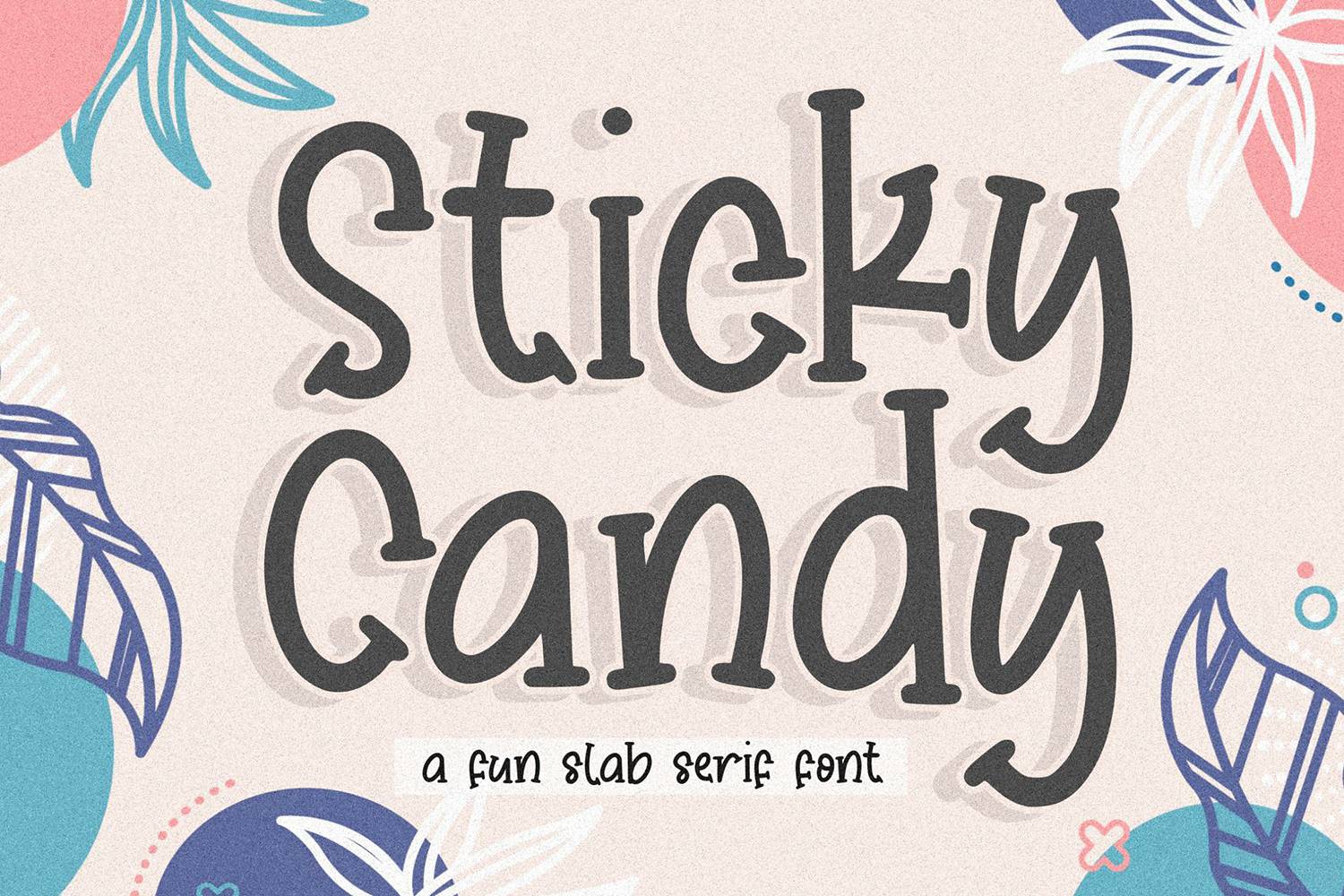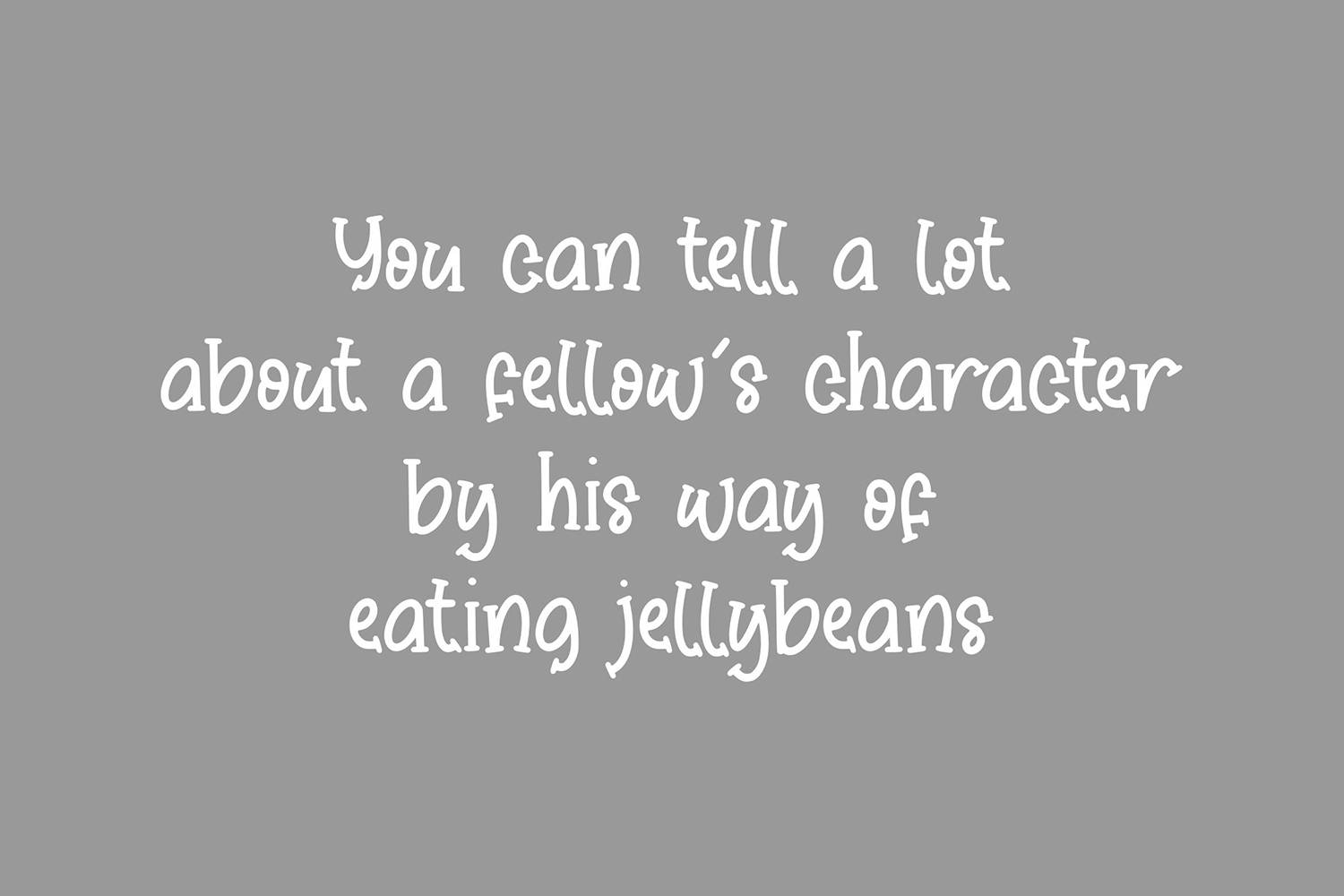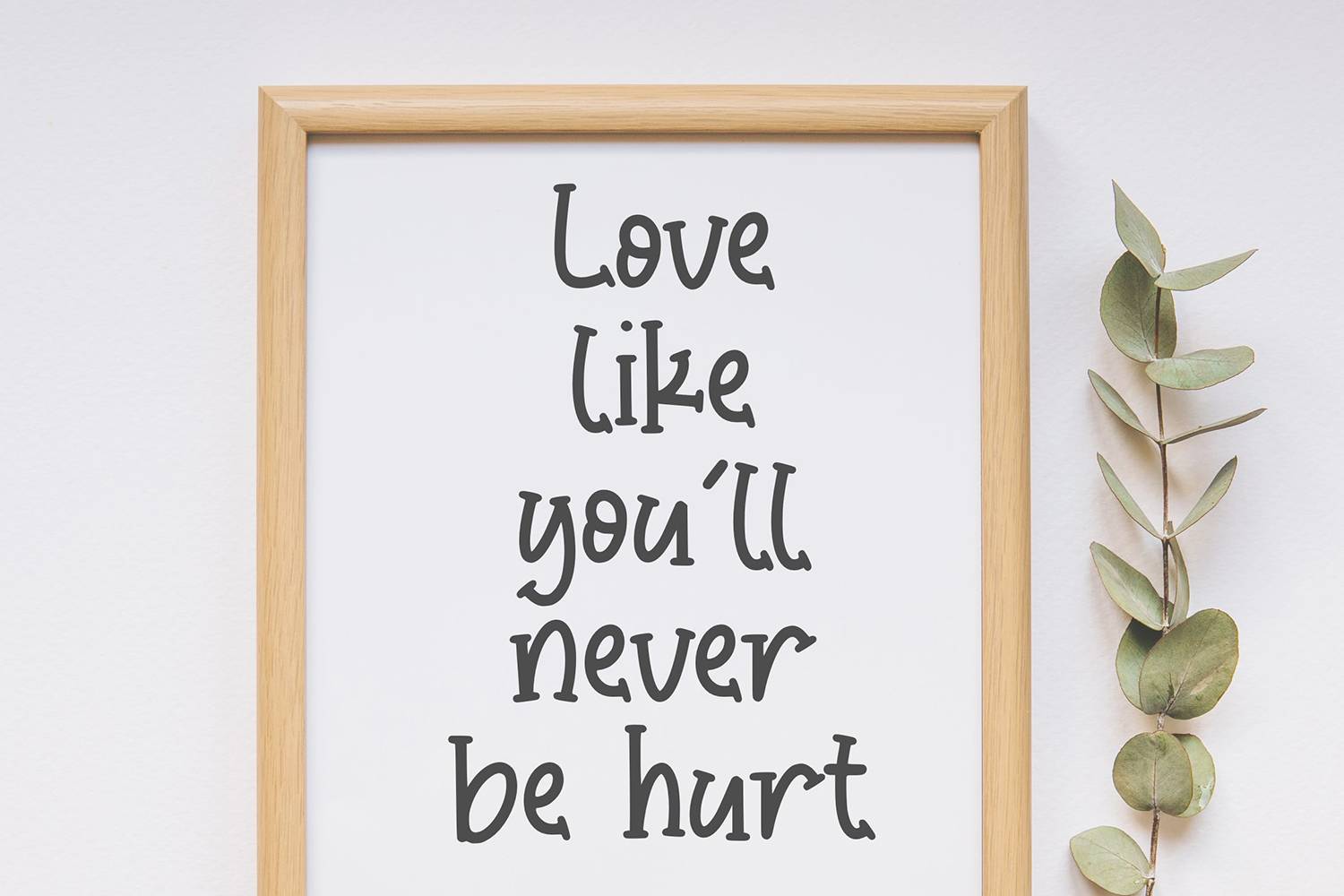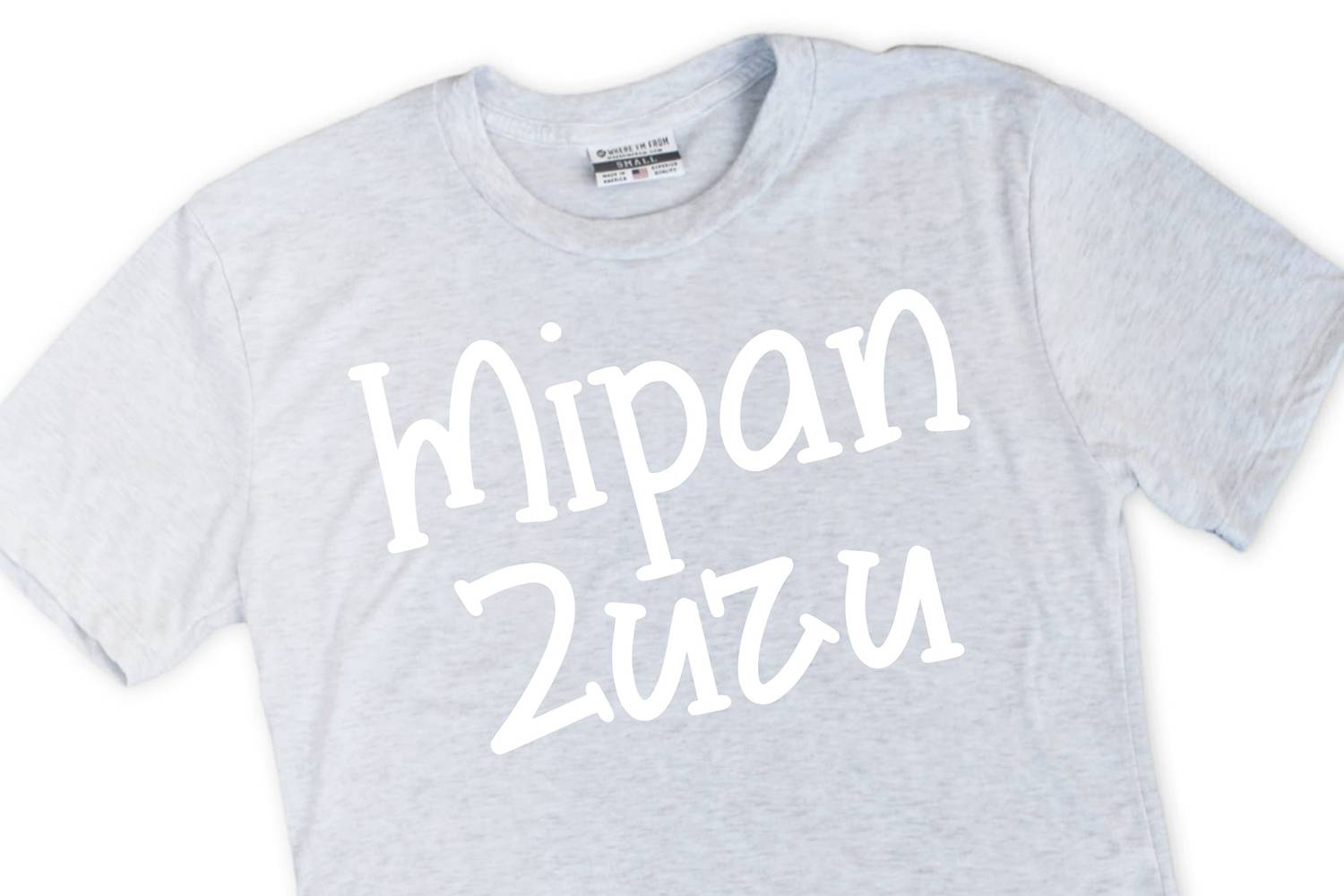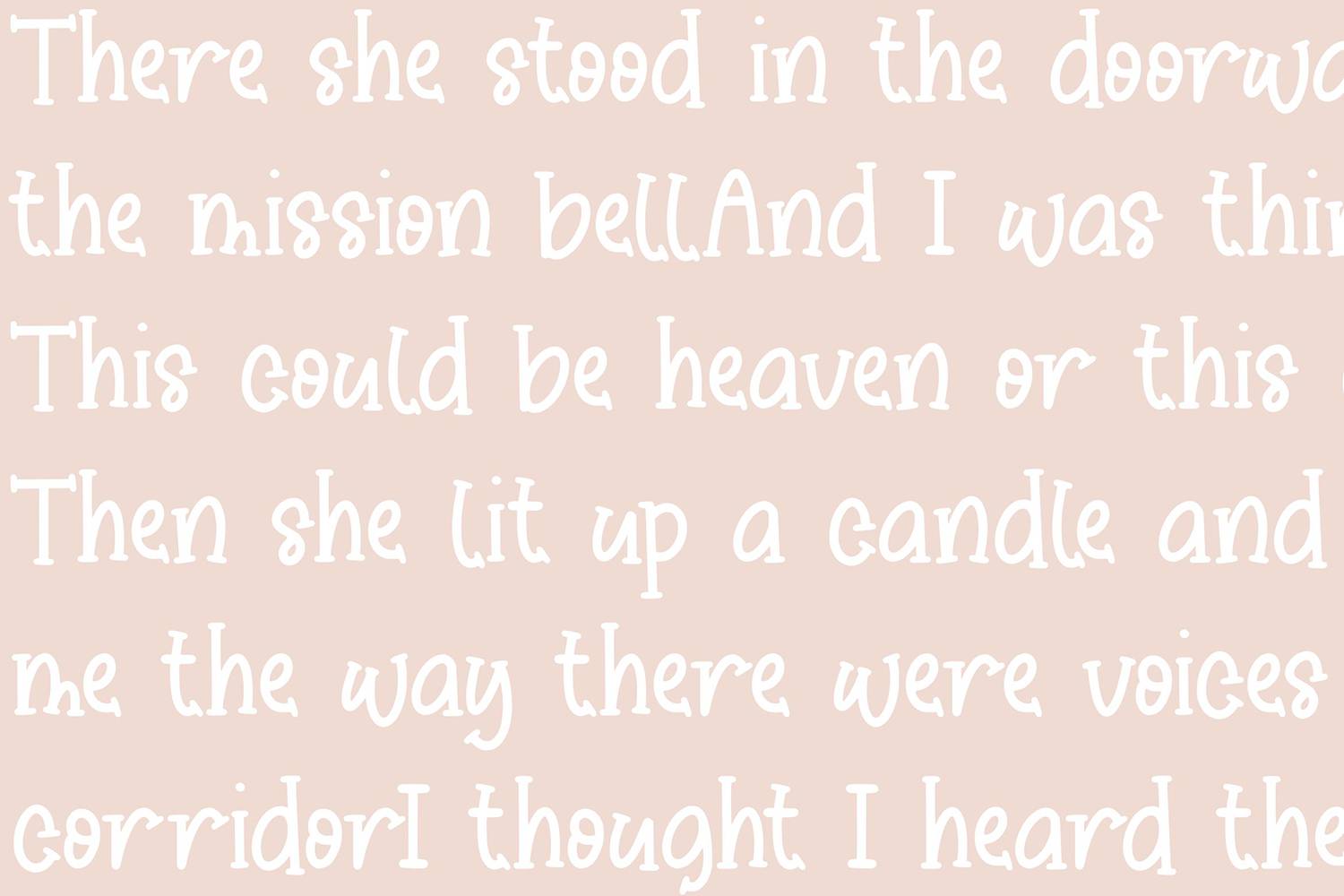
Sticky Candy is a playful handwritten font with a casual, uneven style that makes it feel fun and inviting. Its slightly irregular letter shapes and moderate x-height create a friendly, informal look, perfect for children's materials, crafts, or quirky branding. This font works well for headlines, logos, and any design needing a warm, approachable personality.
Sticky Candy Font
About Sticky Candy Font